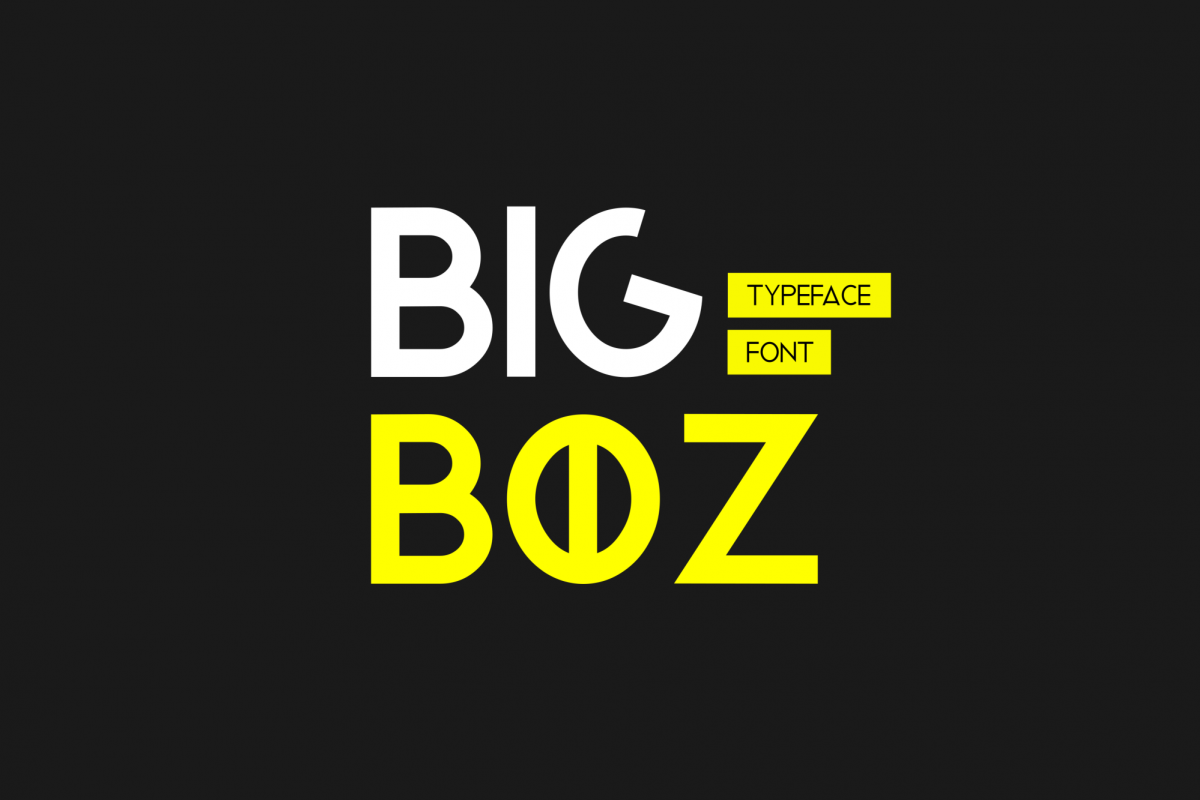
Bigboz Typeface FontBigboz is a nickname for a community leader in Aceh. It also brings its own influence for a society there. The impression that's what makes me to design a font that contains the meaning of courage and strong. It gives birth to a font that we give title Bigboz Typeface FontThis is font perfect to sweeten up your headlines, branding visual identity, editorial, poster, and etc. Soft, Light, and Elegant.